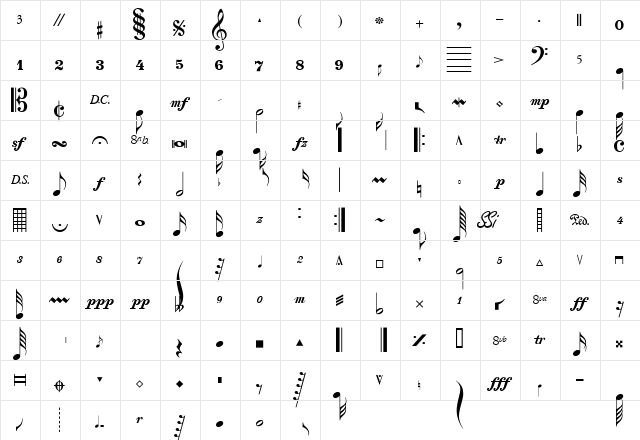
Quintet SSi Regular
Design Context for Quintet SSi Typeface
Quintet SSi takes a measured approach to typography — its balanced proportions and neutral character make it a reliable workhorse for both digital and print work.